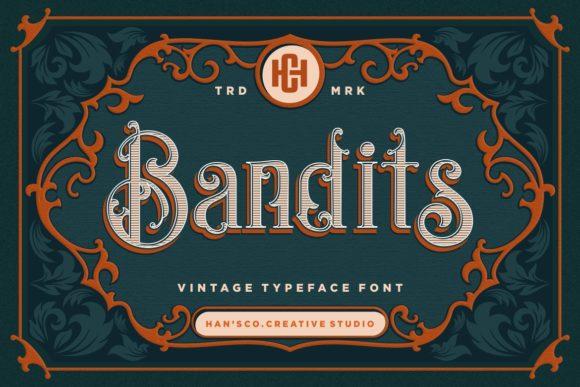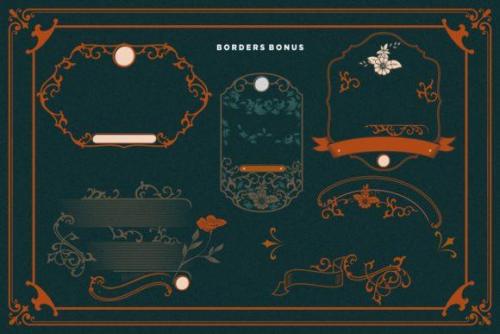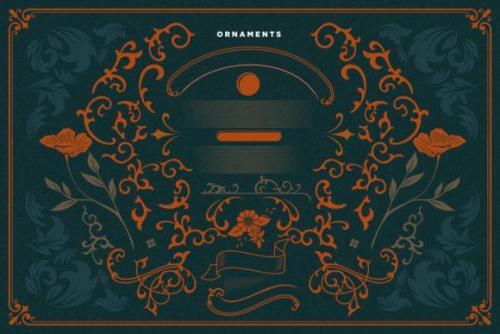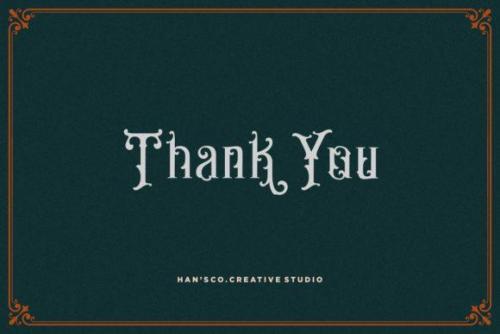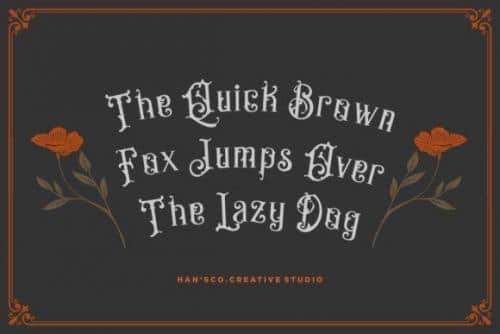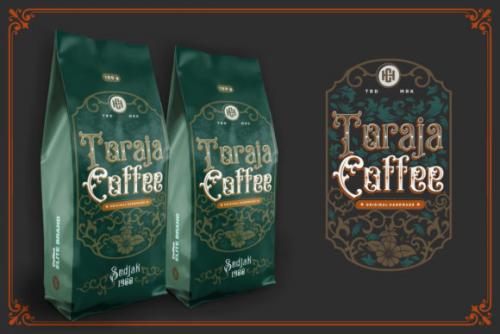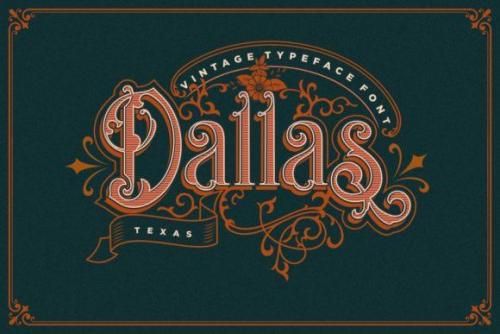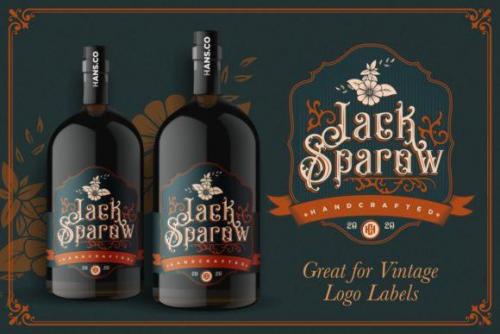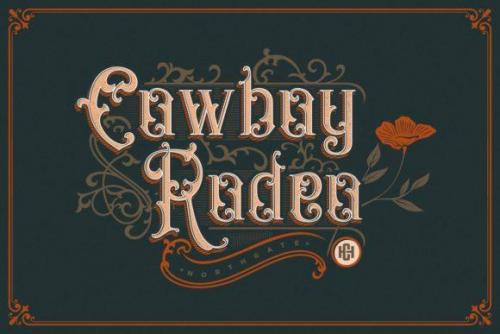
Bandits Blackletter Vintage Typeface
Evoking the iconic style of the trompe l’oeil, Bandits is an extraordinarily ornated display font. Use this luxurious typeface to bring out a Baroque feel in any design.